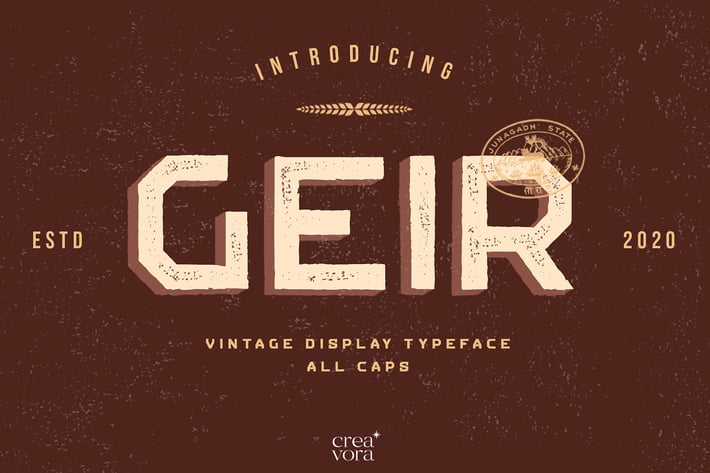
GEIR - Vintage Display Font
GEIR - Vintage Display Font.
Geir is a display font with a wild and vintage concept inspired by the old west label style and motorcycle art.
This font has a gentle character with the letters all caps, with grunge elements on each letter, Geir is suitable for use for jeans product logos, vintage automotive logos, flyers, event poster headers, and more.
- Uppercase Characters
- Punctuation, Numerical
- Multilingual support for various languages including: French, German, Spanish, Portuguese, Italian, Dutch, Finnish, Swedish, and more.